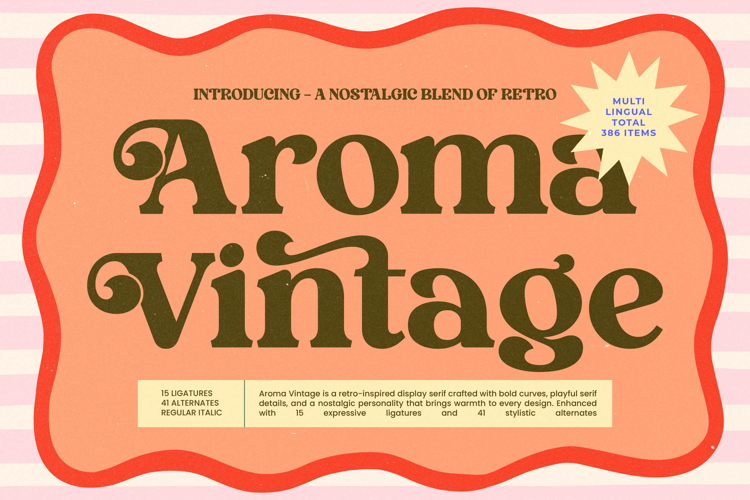
Aroma Vintage - Retro Display Serif
Unleash the irresistible charm of genuine nostalgia with Aroma Vintage - Retro Display Serif. This exceptional display typeface masterfully captures the spirit of mid-century aesthetics, blending bold, confident curves with playfully sophisticated serif details. Designed for maximum visual impact, it injects immediate personality and a sense of inviting warmth into any project, making it an instant focal point for eye-catching headers and titles that demand attention.
Elevate your typography with limitless creative control using the robust OpenType features embedded within Aroma Vintage - Retro Display Serif. Featuring 15 expressive ligatures and over 41 stylistic alternates, this font provides an extensive toolkit for customization. Designers can effortlessly craft truly unique logo lockups and tailor every word for maximum stylistic effect, ensuring no two applications look exactly alike and maintaining high aesthetic appeal and design versatility.